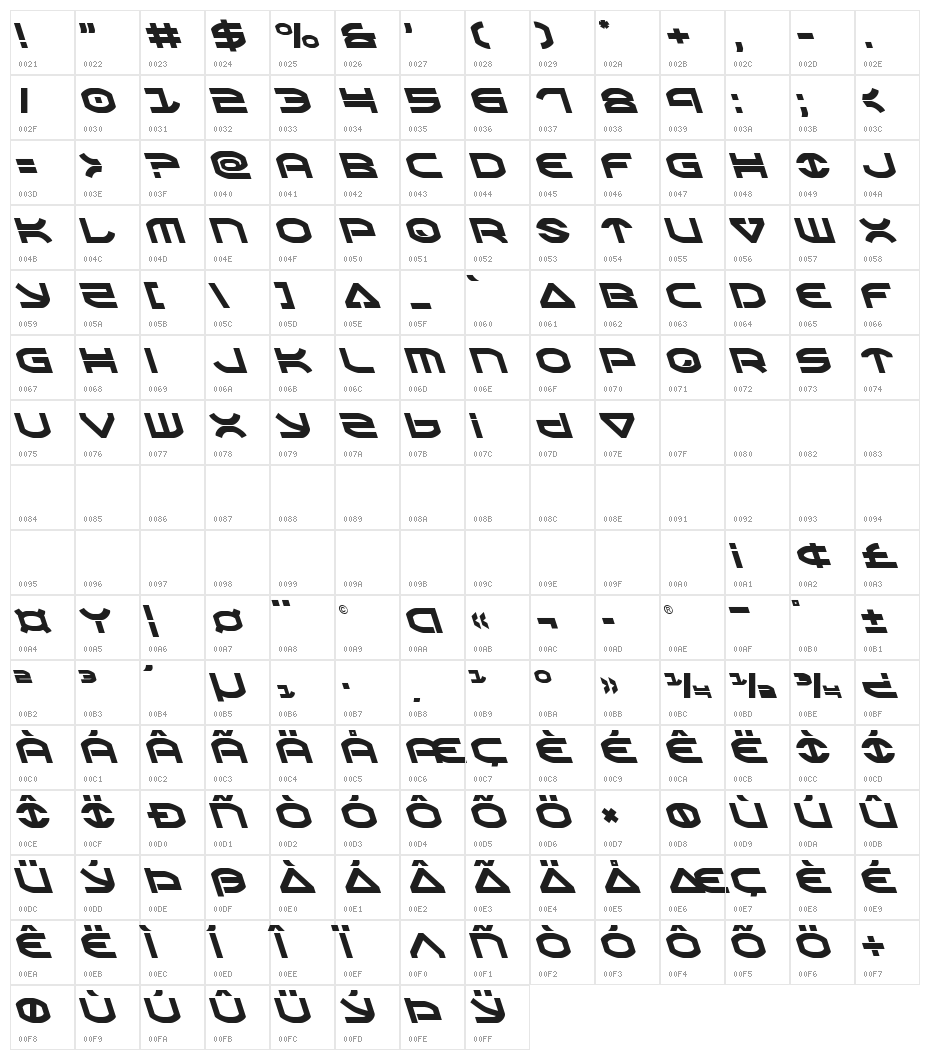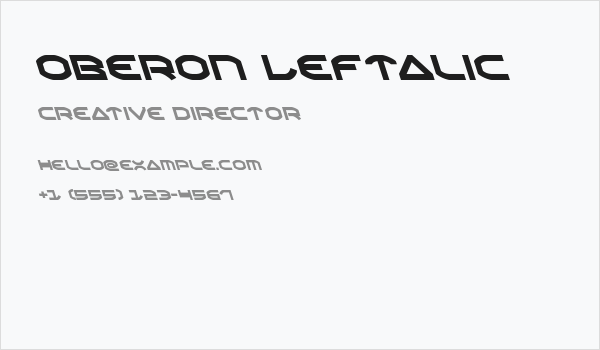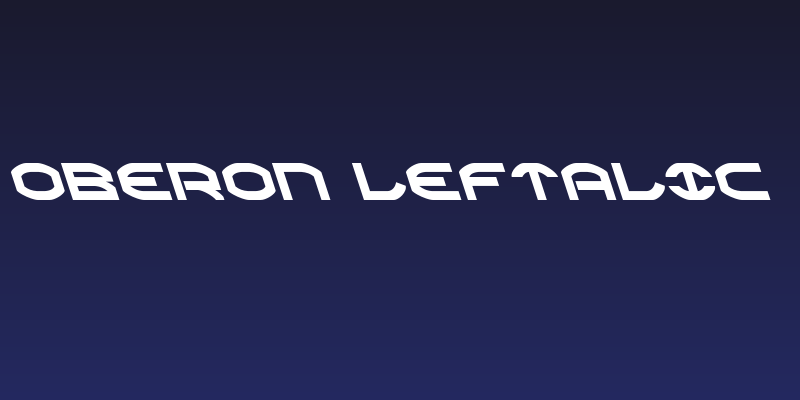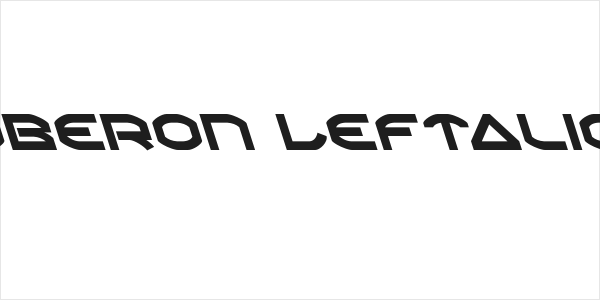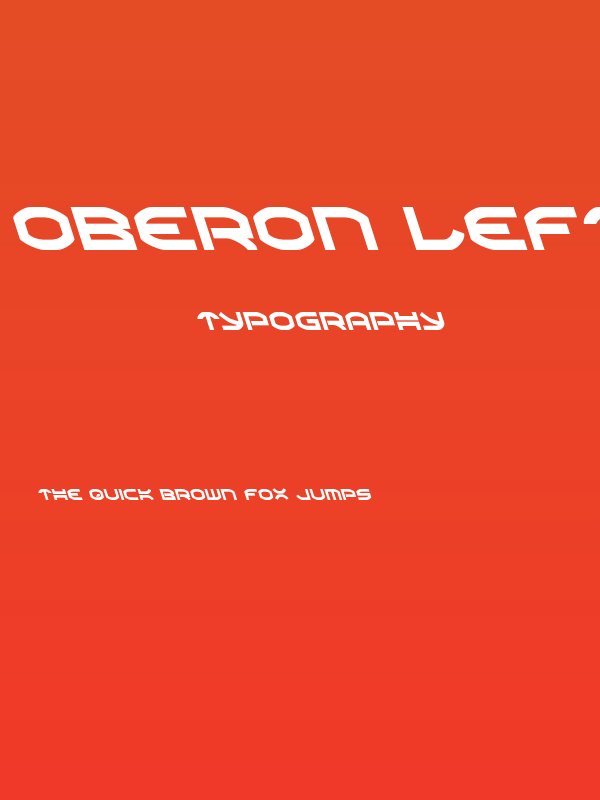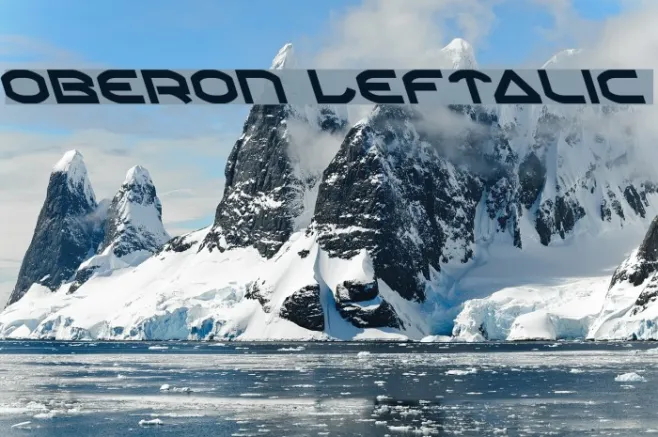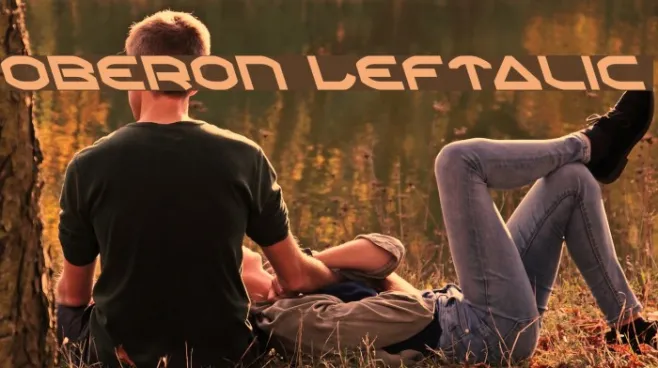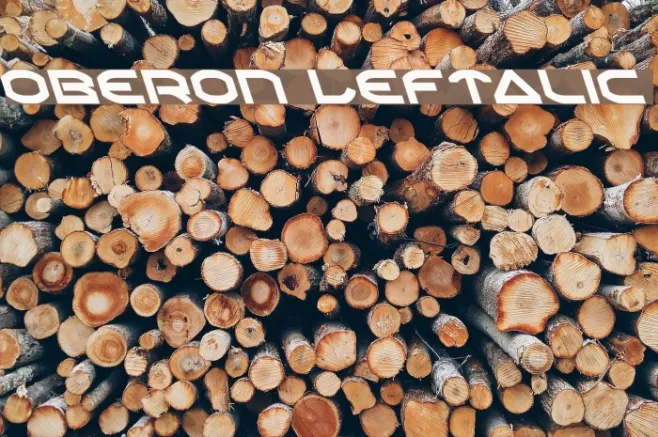
Oberon Leftalic Font
Oberon Leftalic Description
This font features a futuristic and geometric design with sharp angles and unique cutouts within each character. The letters are bold and have a distinct, angular appearance, giving them a modern and edgy feel. The uppercase and lowercase letters maintain a consistent style, with the lowercase being slightly smaller but equally bold. Numbers and special characters follow the same design principles, ensuring uniformity across all glyphs. The font's style is highly decorative, making it suitable for projects that require a standout, eye-catching typeface.
| Proposed Projects | Ideal for sci-fi themed designs, video game titles, tech branding, and modern posters. |